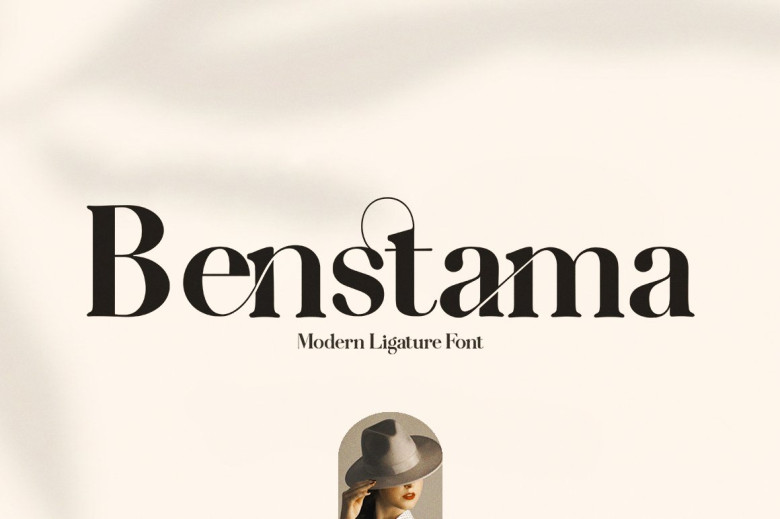
Benstama Font
Benstama is an elegant and striking serif font with an eye-catching, bold style. Take advantage of its amazing versatility to make beautiful wedding invitations, stationary art designs, Instagram posts and much more.
Benstama Bold Serif Font